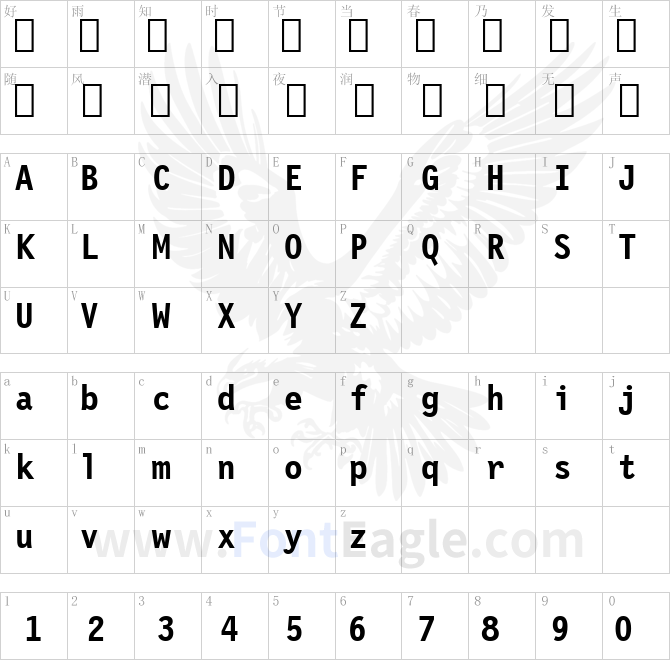
- Font name:LettrGoth12 BT
- Font Subfamily ID:Letter Gothic 12 Pitch Bold, Fixed Pitch 850
- Font Full Name:LettrGoth12 BT Bold
- Postscript:LetterGothic12PitchBT-Bold